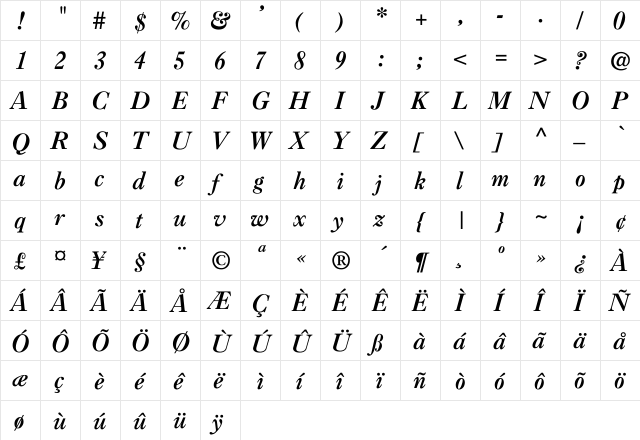
Tintinabulation Bold Italic Regular
Design Context for Tintinabulation Bold Italic Typeface
Tintinabulation Bold Italic is a composed and adaptable typeface that performs quietly and consistently across a wide range of design contexts. The dynamic lean of this cut emphasises speed and emphasis in any layout. Its bold stroke weight gives it real presence on the page.
Pro Tip: Try Tintinabulation Bold Italic for annotation and caption copy alongside an upright companion — the contrast in angle creates a dynamic but ordered typographic system.